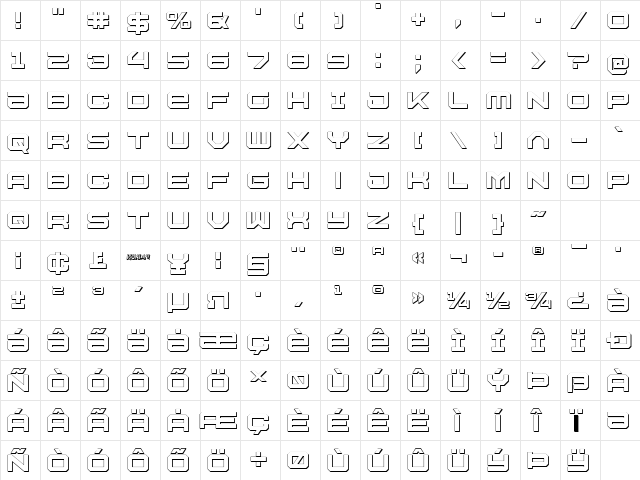
U.S.S. Dallas Outline Regular
Design Context for U.S.S. Dallas Outline
U.S.S. Dallas Outline is built around its visual character rather than neutral utility - its distinctive forms are designed to make an impression at display sizes.
Font Pairing: Pair with a clean neutral sans-serif for body copy to let U.S.S. Dallas Outline's character lead without overwhelming the composition.
Pro Tip: Use U.S.S. Dallas Outline exclusively at display sizes - it was designed to be seen, not read at length. Let a neutral companion handle body copy.